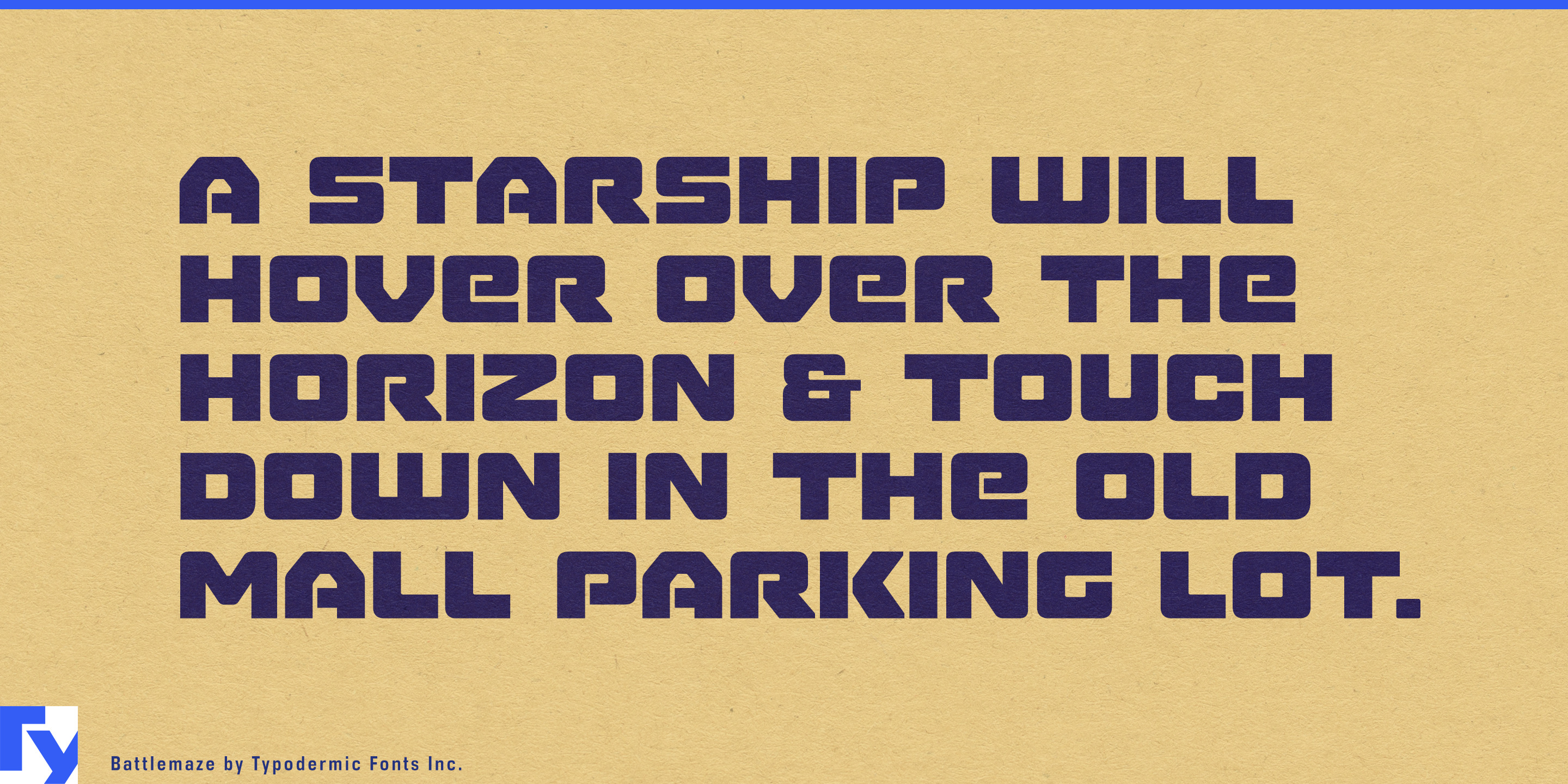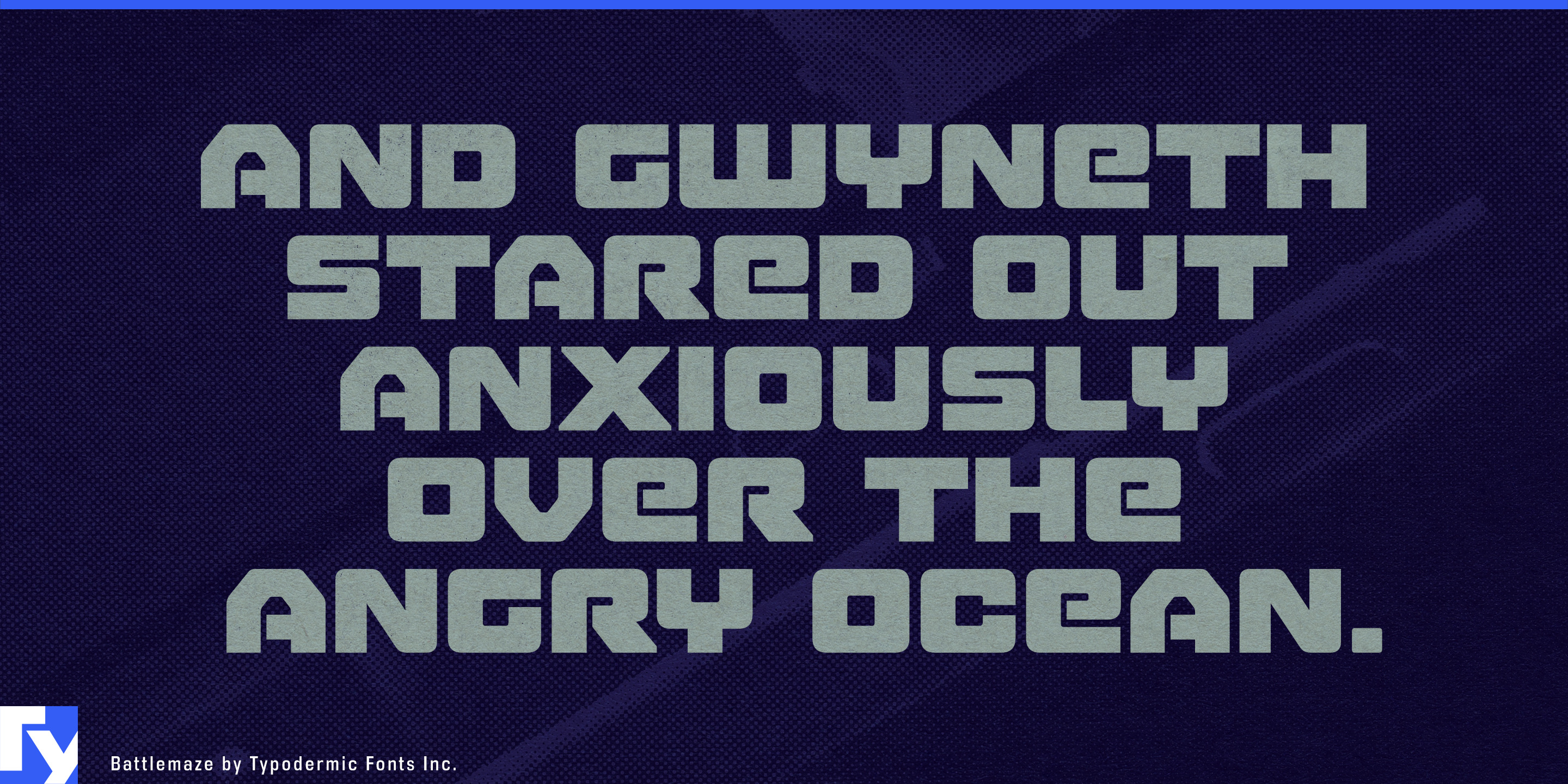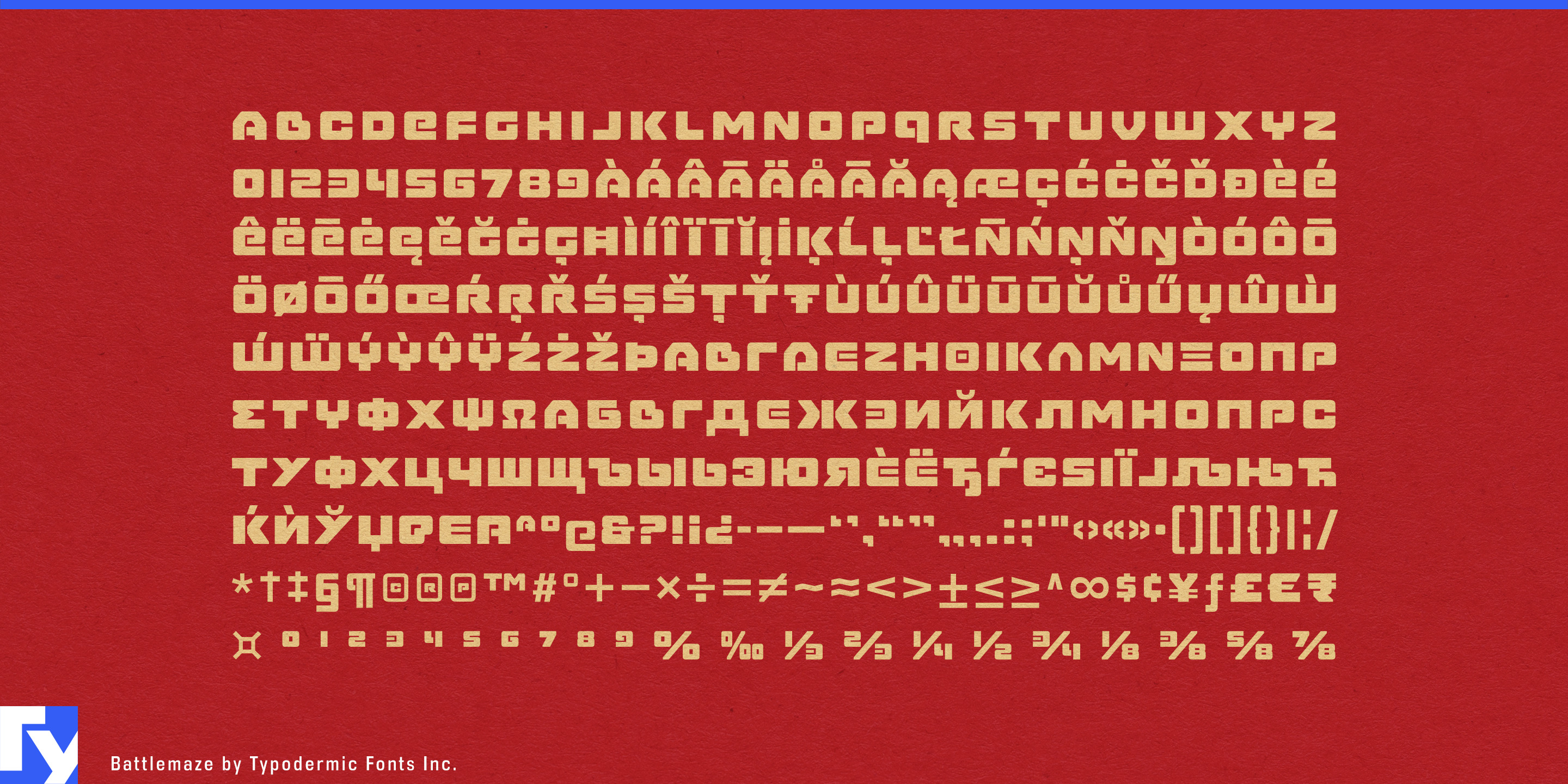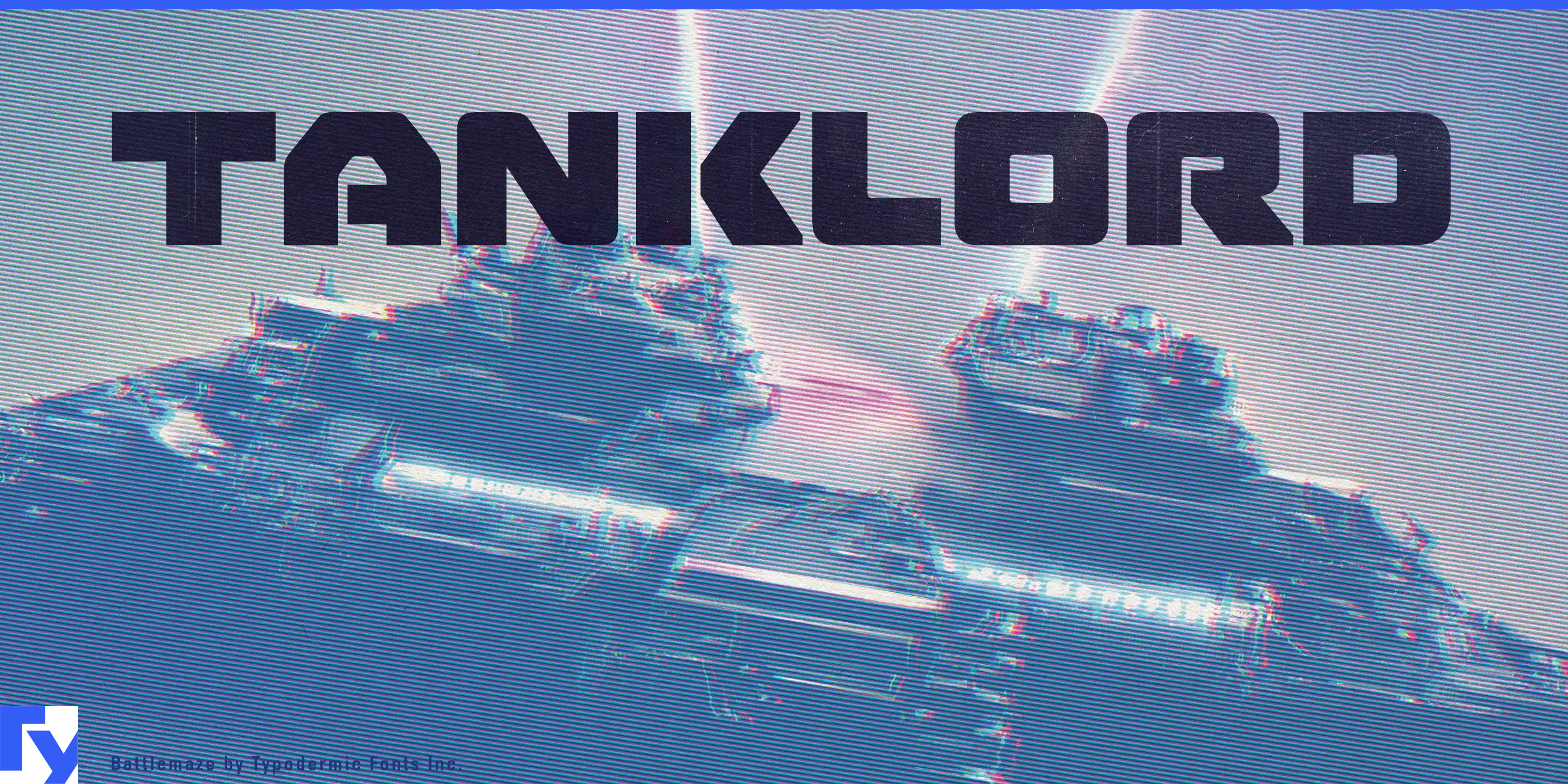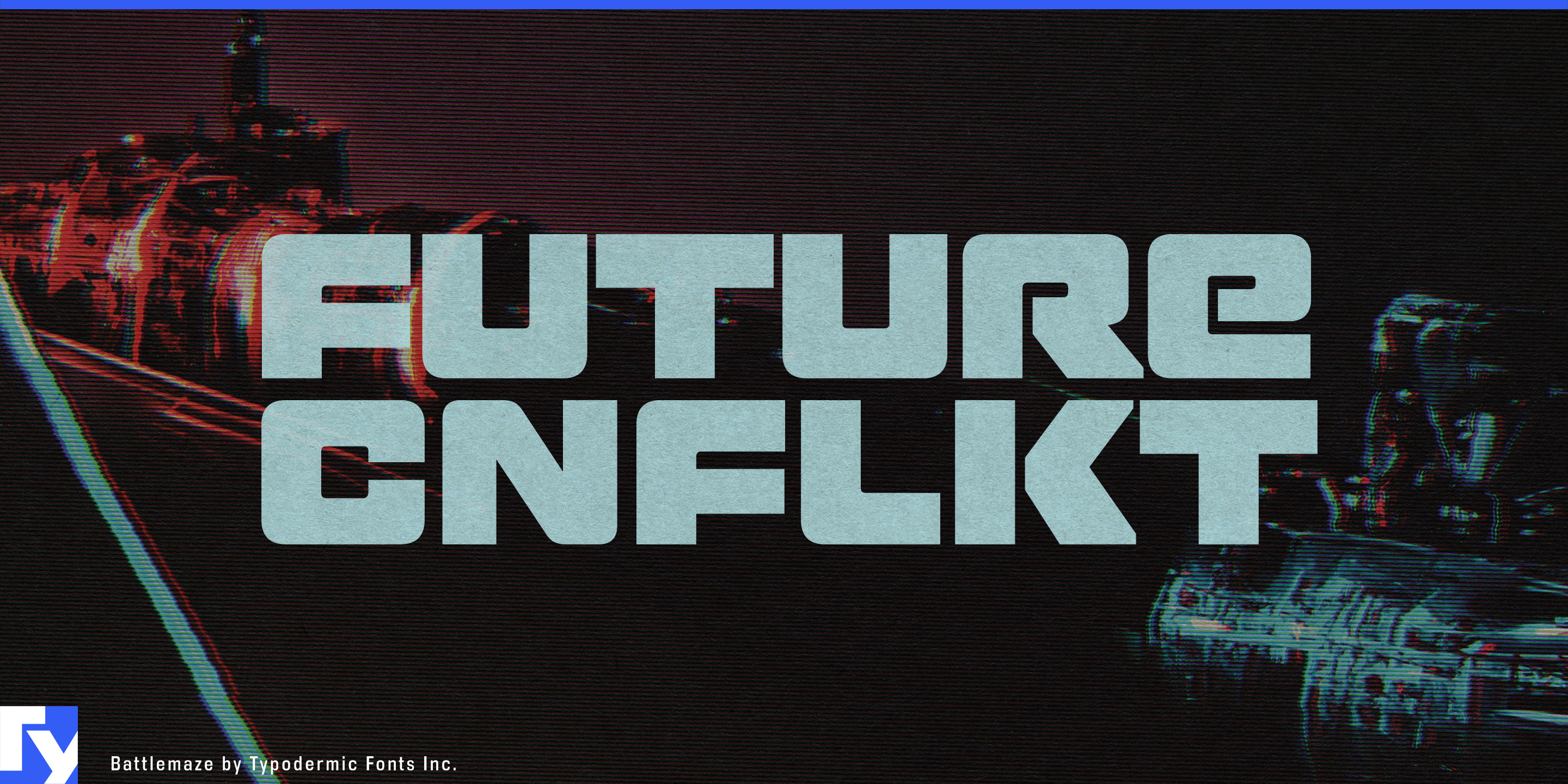
Battlemaze
Battlemaze is a typeface that channels the precision of Japanese industrial logos and the chunky geometry of 1980s tech design into a display face built for impact. Its compact, folded-line construction creates a dense, mechanical rhythm that’s as clear at small sizes as it is commanding on a billboard. The name hints at its ideal habitat: sci-fi game titles, heads-up displays, and any project that needs the structural punch of a futuristic control panel. Angular cuts in letters like “A” and “V” bring energy, while a contextual feature flips the “B” in certain letter pairs for a small but memorable glitch effect. With extended Latin coverage and select Cyrillic support, Battlemaze works across languages while holding onto its industrial edge. Use it when you want your typography to feel engineered, game-ready, and unmistakably commanding.